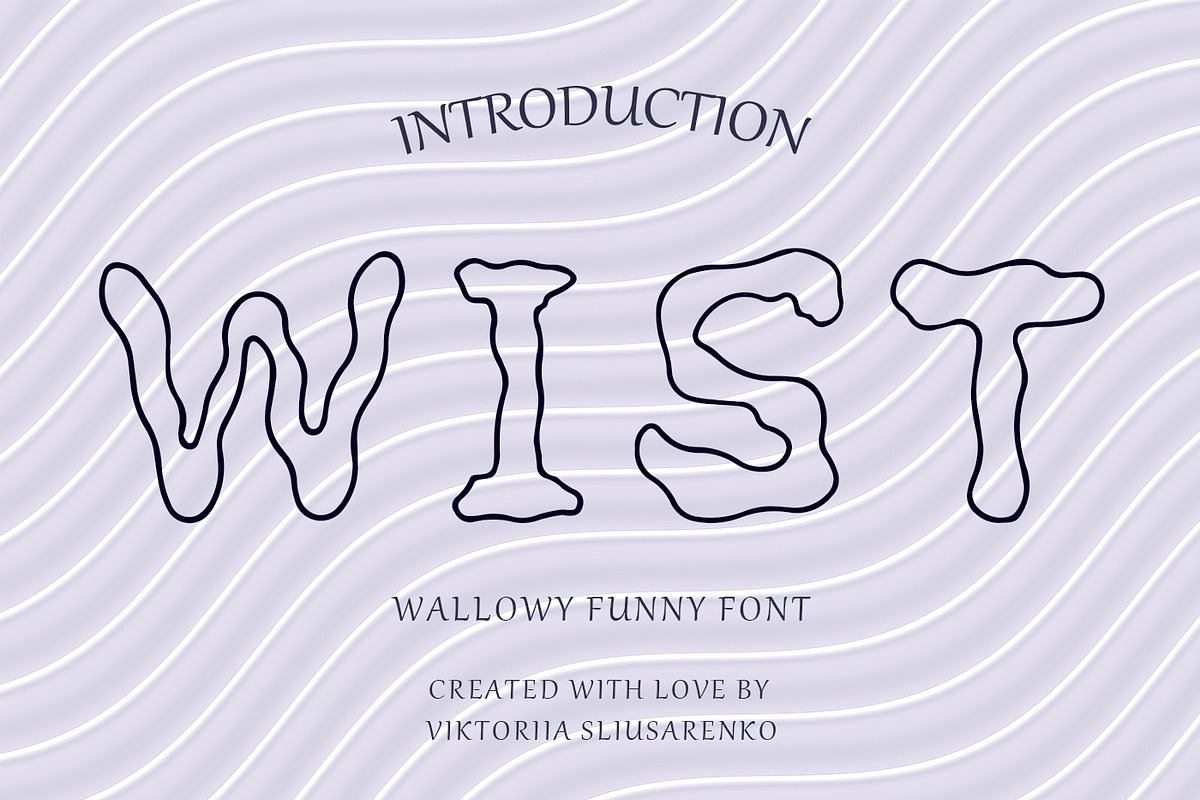
WIST – Funny Handwriting Font Free Download is a cheerful and quirky typeface that captures the spontaneous charm of playful doodles. With bouncy lines, uneven strokes, and a light-hearted vibe, this font is perfect for kids’ projects, creative branding, DIY crafts, social media posts, and fun event materials.
Its imperfect style adds personality and warmth to every design—making it ideal for designers who want to keep things casual, creative, and full of joy. Whether you're creating custom greeting cards, children’s books, or colorful posters, WIST brings a smile to every word.
Designers love WIST for its authenticity and whimsical flair. Ready to let your typography giggle and shine? Download WIST – Funny Handwriting Font Free Download and bring lighthearted creativity to your next project.